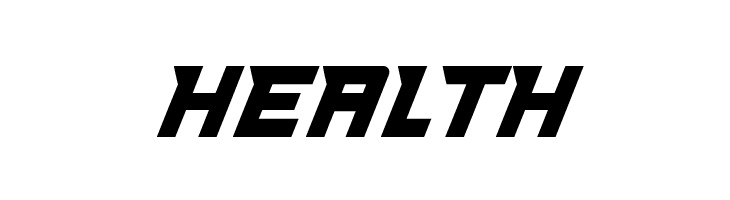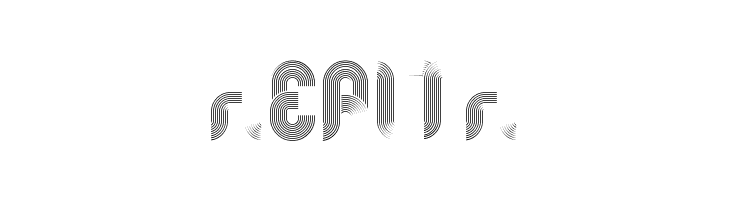
A playful, hand-drawn font with a whimsical and energetic style.
A dynamic script font with elegant, flowing strokes and a calligraphic style.
A bold, brush-textured font with a rugged and dynamic style.
A flowing, cursive script font with elegant loops and swashes.
A bold, italic, and geometric font with a futuristic style.
A modern, layered font with a three-dimensional effect and decorative line work.
A dynamic, brush-style font with an expressive, handwritten look.
A dynamic, brush-style font with expressive and fluid strokes.
A playful, casual handwritten font with fluid, dynamic strokes.